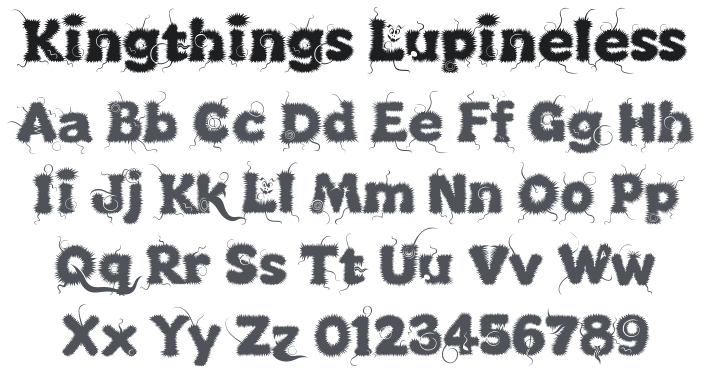
Kingthings Lupineless Font
About Kingthings Lupineless
I love fantasy writing and my favourite author is Terry Pratchett. In Reaper man, my favourite book, there is a werewolf character called Lupine, I wanted to make a font for him and for Ludmilla... It's a long story, it's a hairy font.